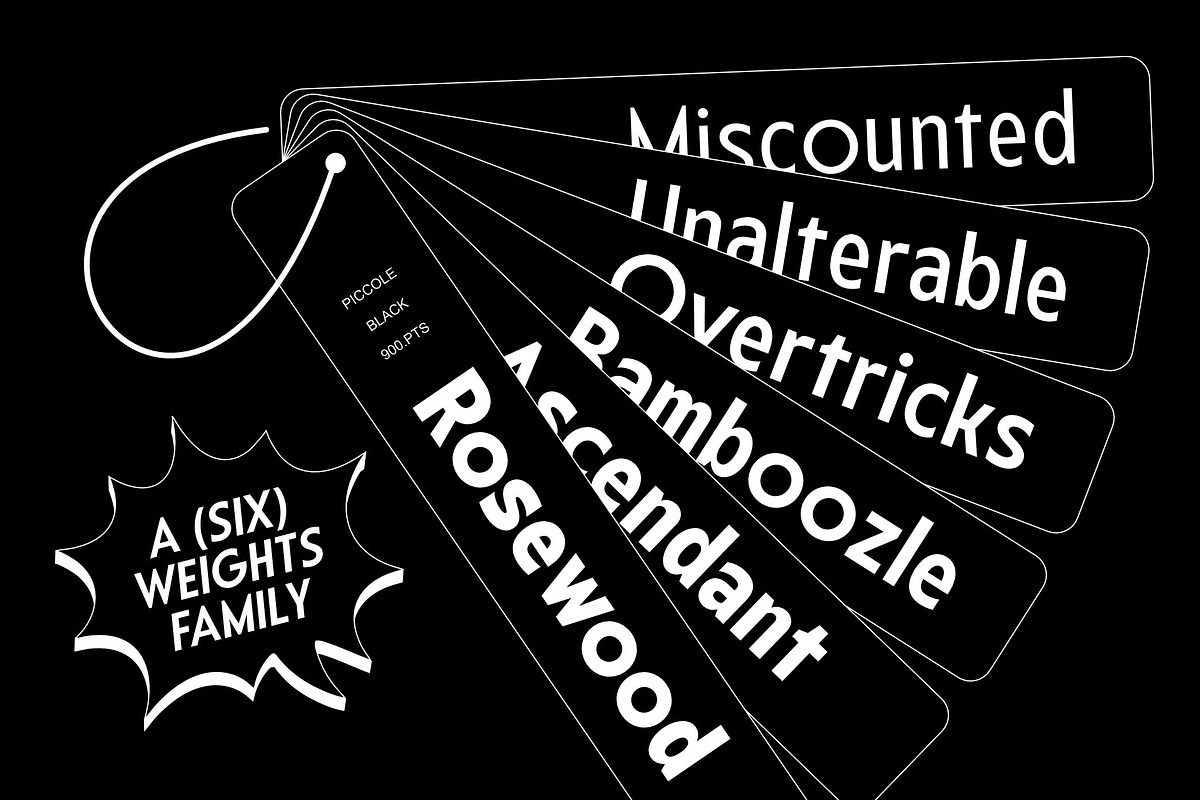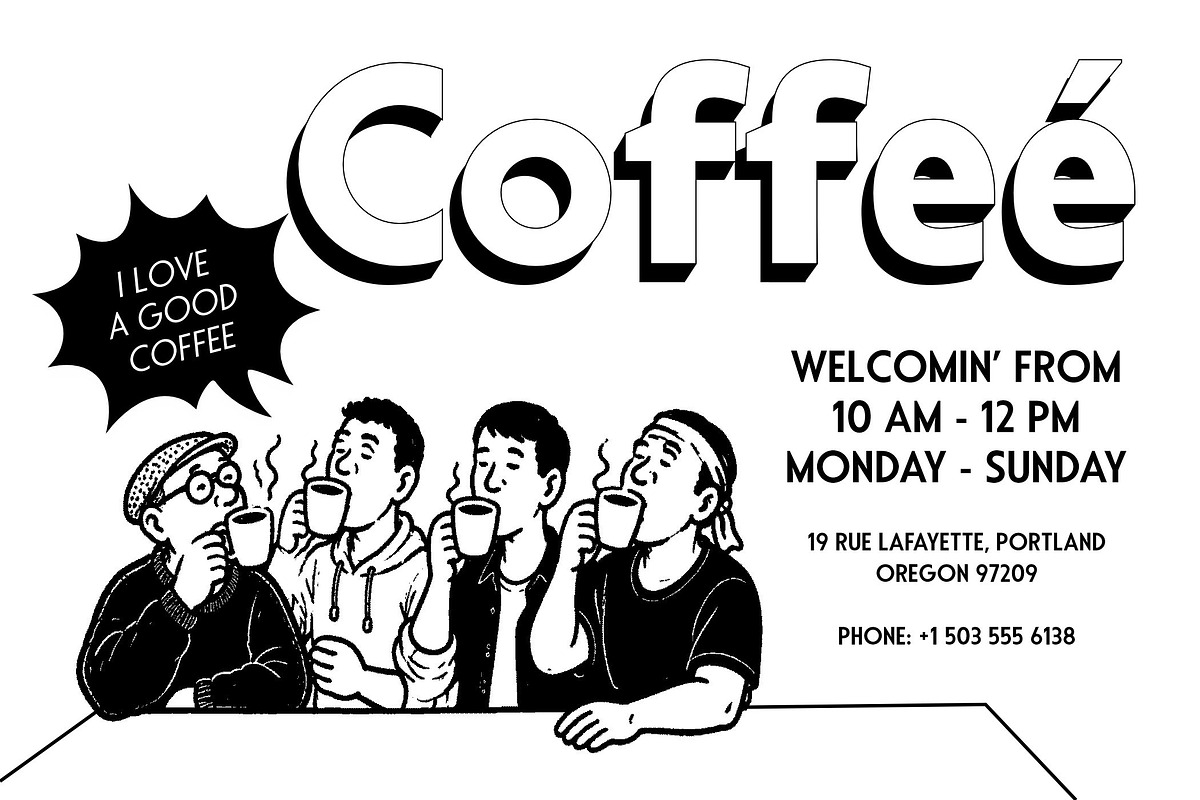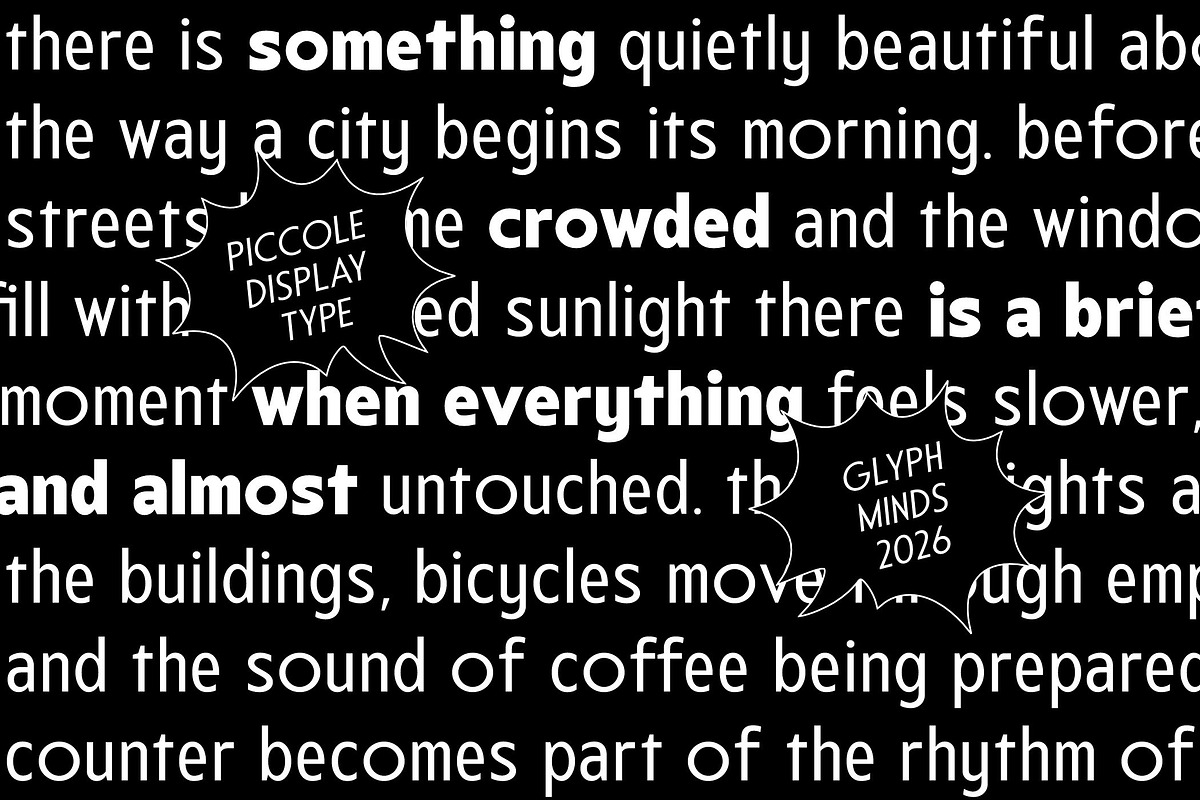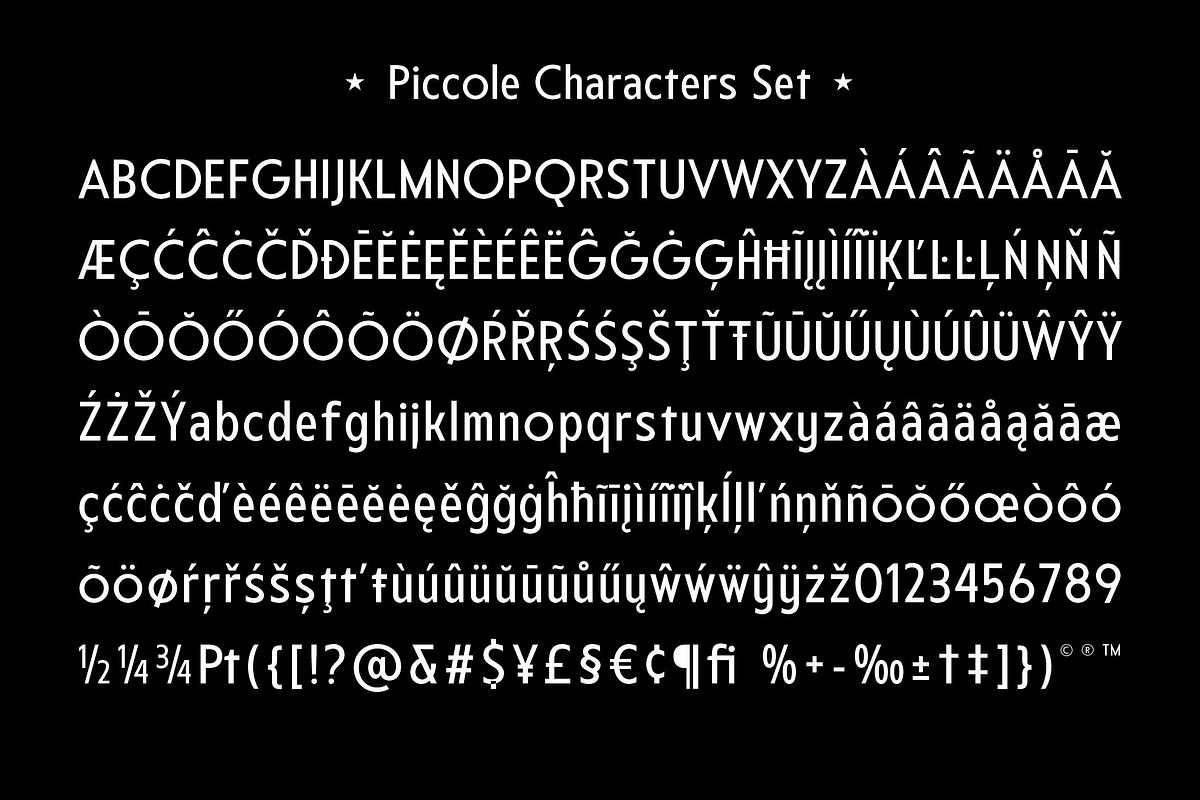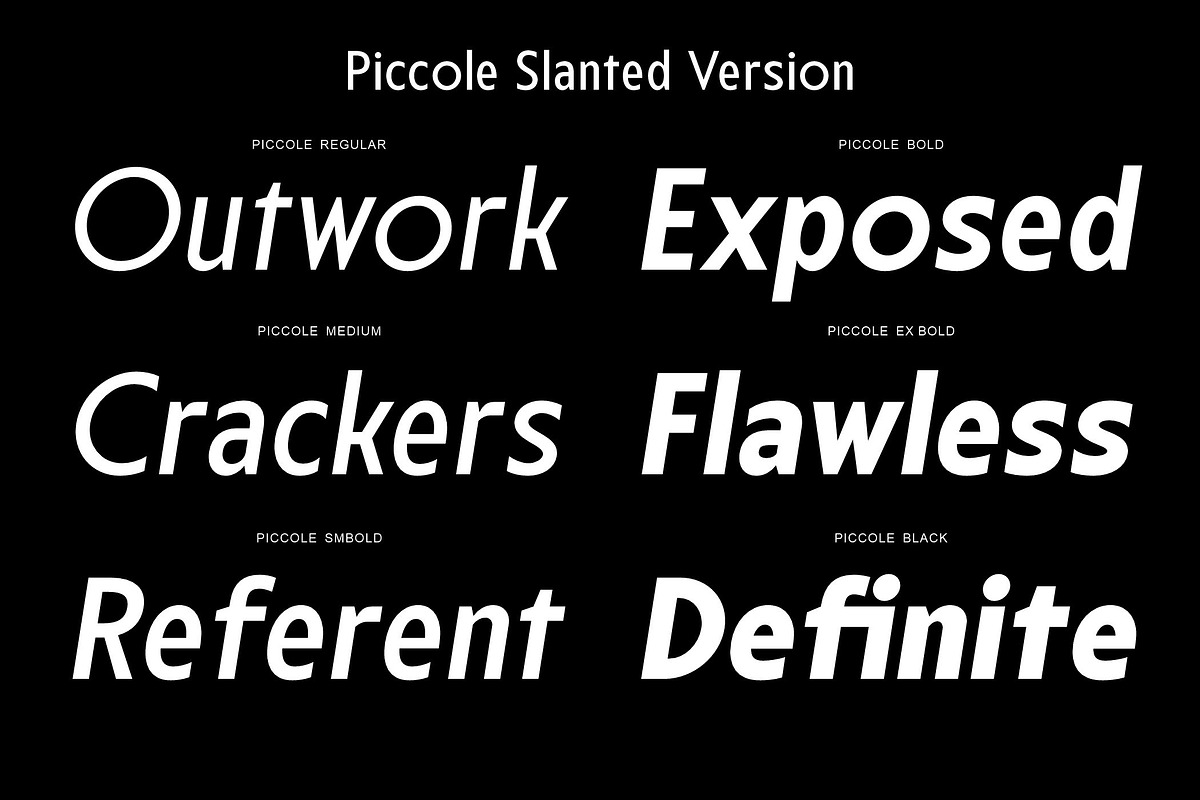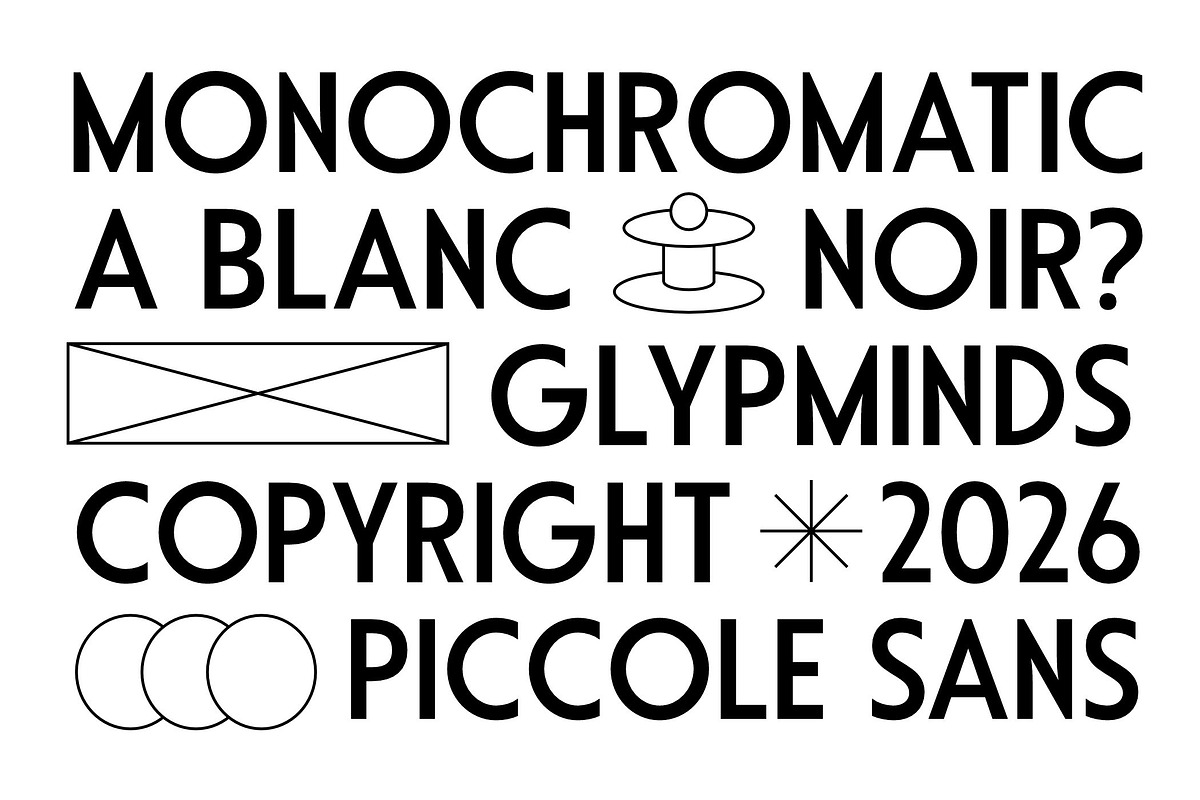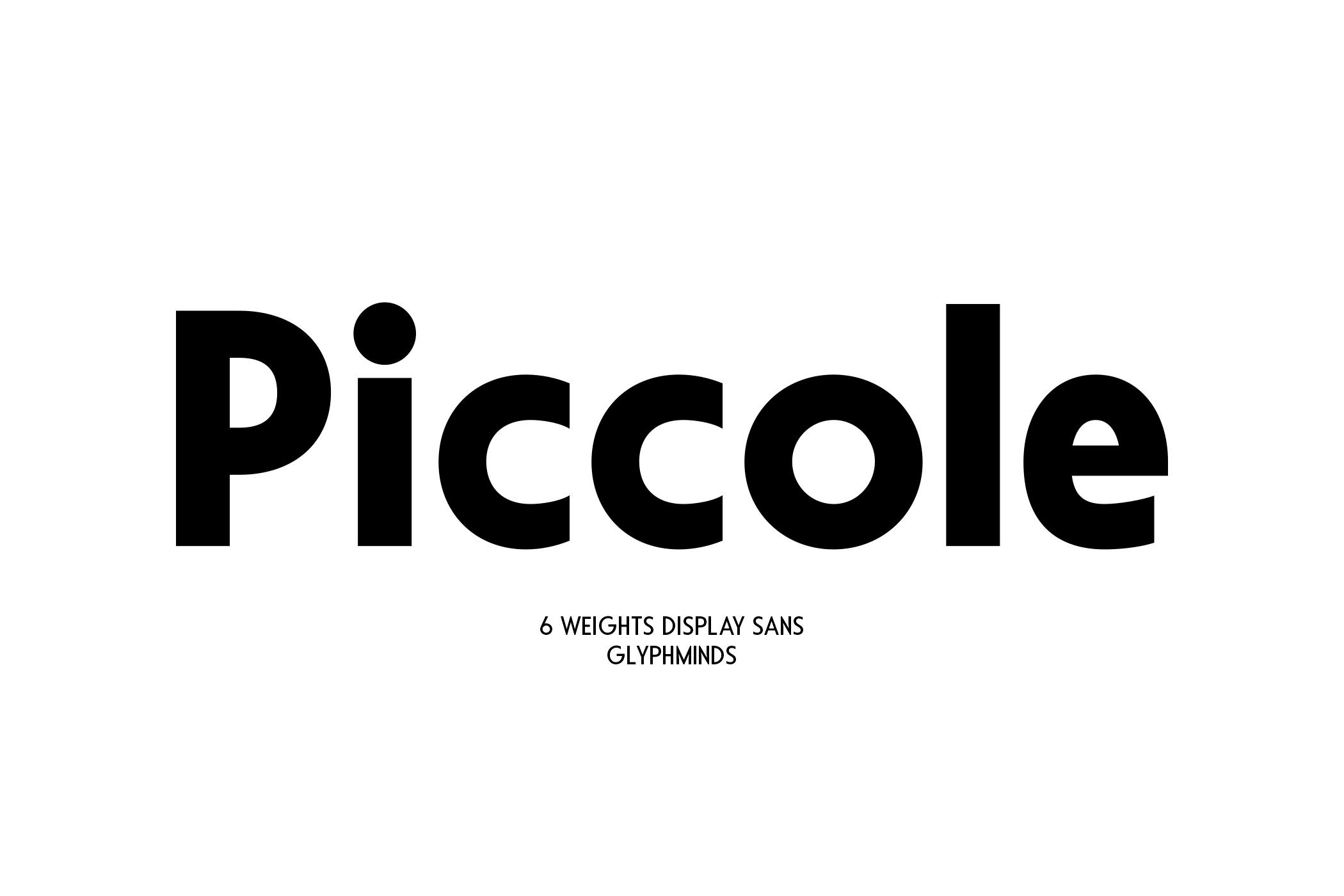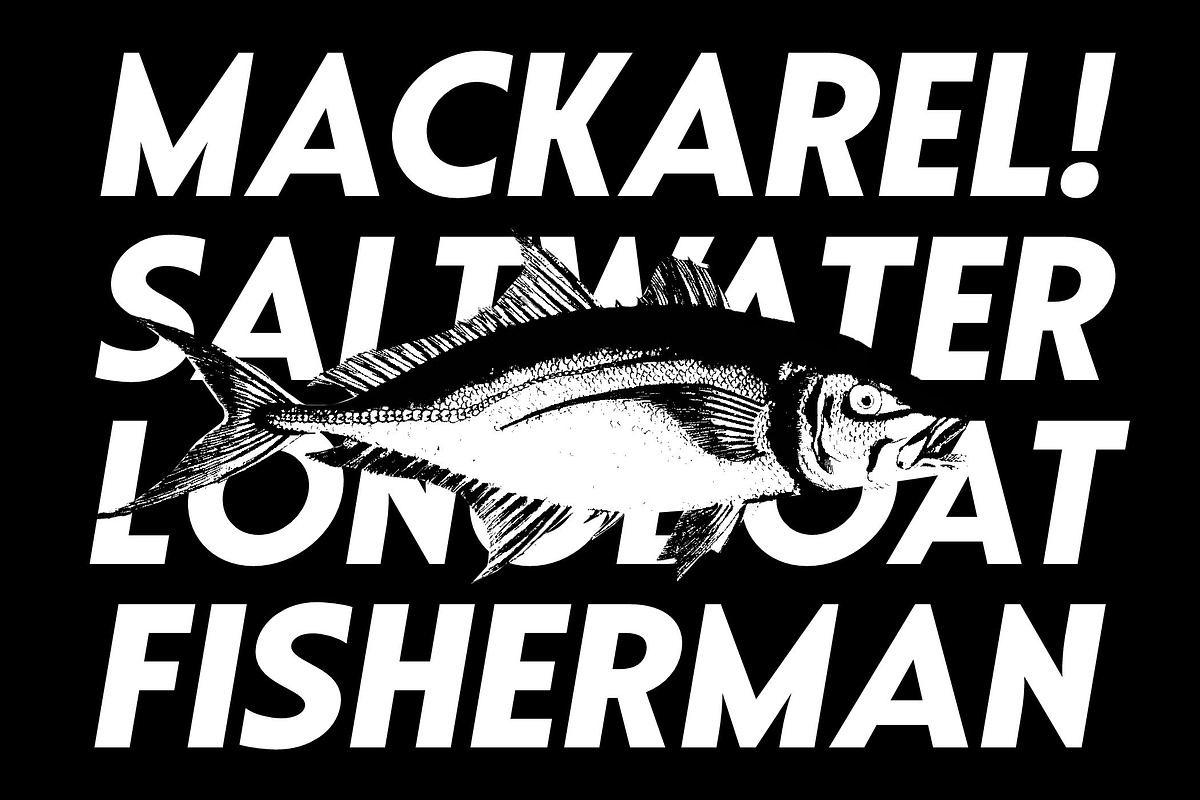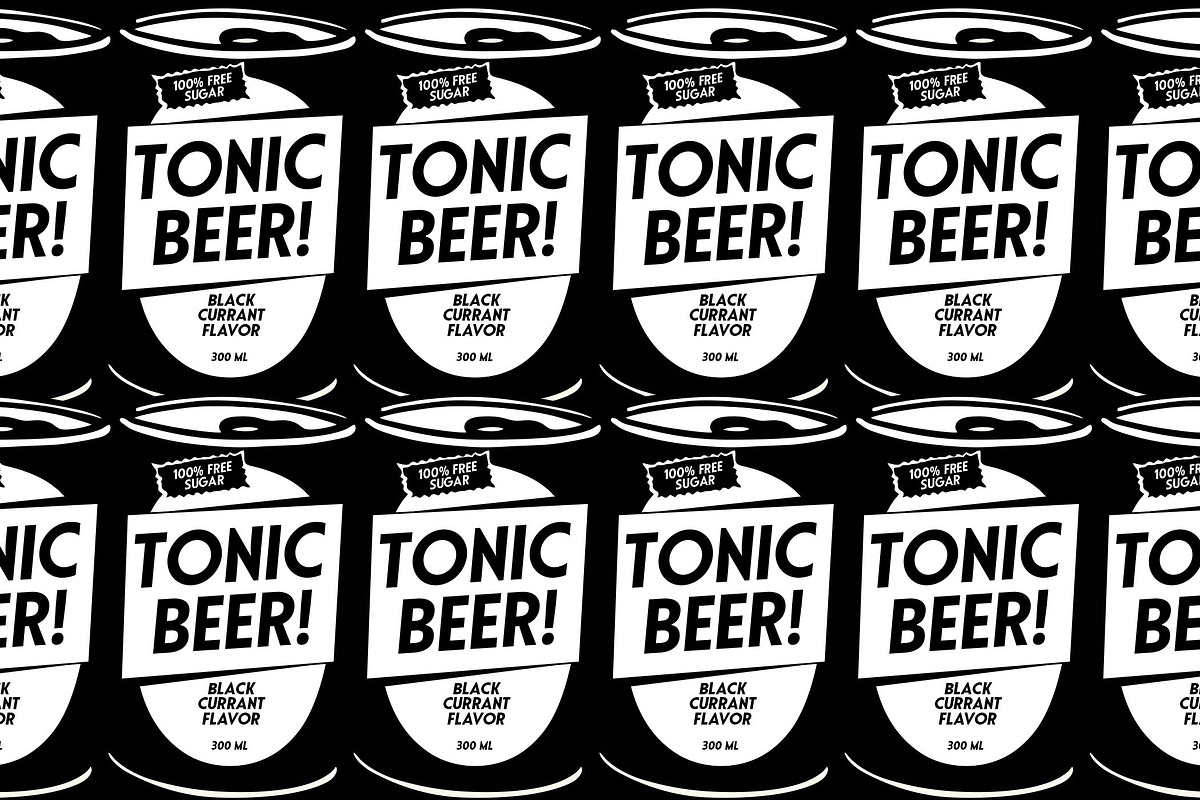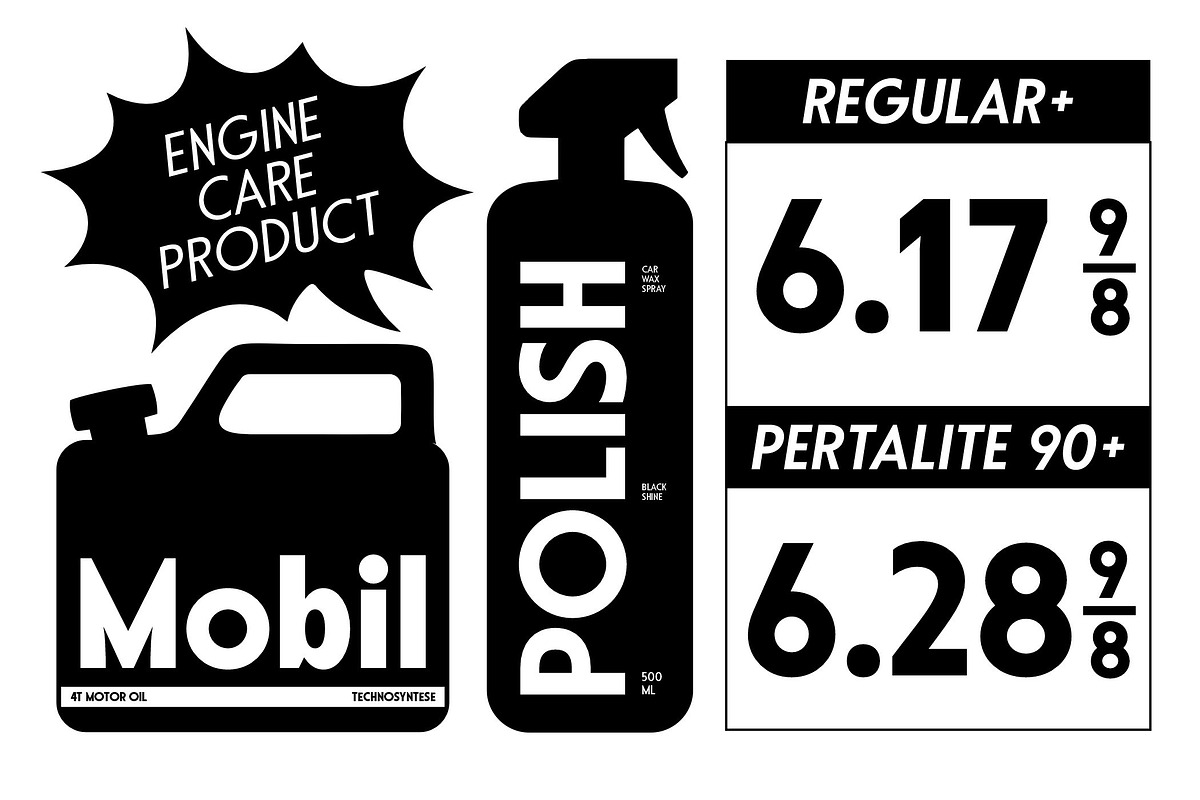
Piccole Font
Piccole is a bold, geometric sans-serif typeface designed for maximum visual impact. With rounded terminals, tight letter spacing, and confident, chunky strokes, Piccole strikes the perfect balance between modern minimalism and playful boldness. Available in 6 weights — from Regular to Black — it adapts effortlessly to branding, packaging, posters, app UI, social media headlines, and logotypes.
Its geometric structure keeps it clean and versatile, while the rounded dots and open counters give it a warm, approachable personality that stands out in any display setting. Whether you need a subtle Regular weight for body headlines or a punchy Black weight for bold statements, Piccole delivers consistency and character across the entire family.